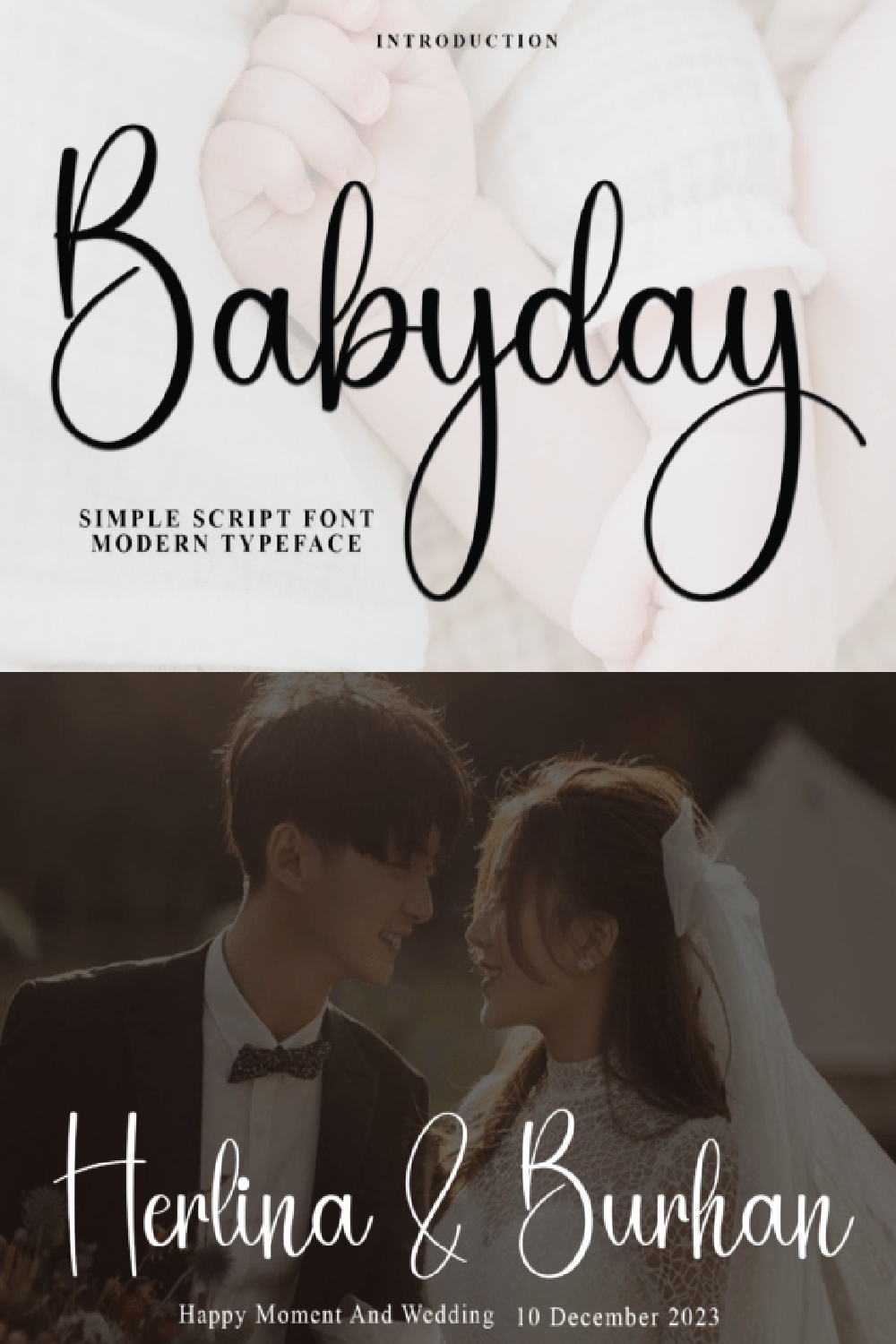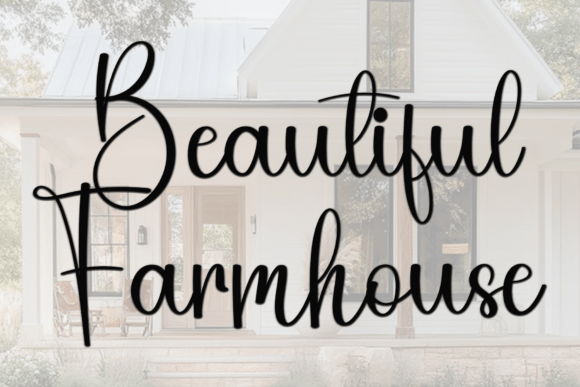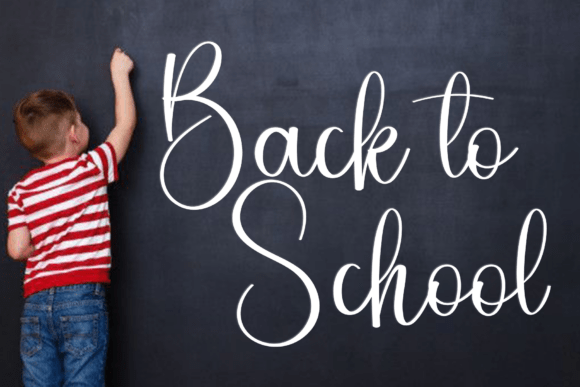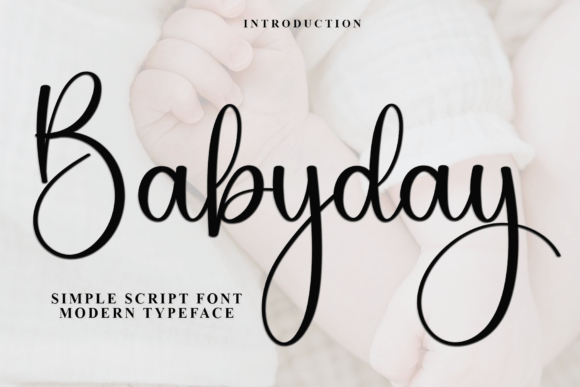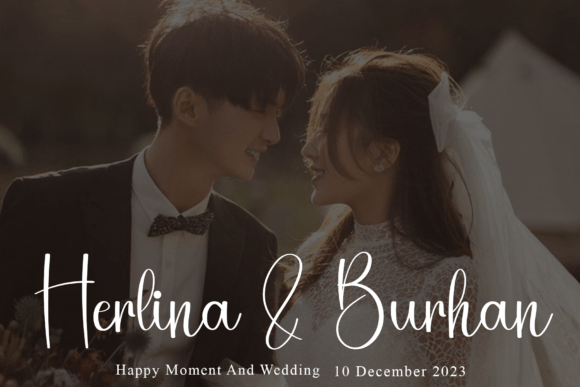
About the Babyday Font
The Babyday Font is here to transform your projects with its distinctive character and style. Babyday is a festive and merry typeface that captures the spirit of the holiday season. With its decorative elements and whimsical flair, it adds a touch of enchantment to your designs. Perfect for greeting cards, gift tags, and holiday-themed projects, this font brings a cheerful and nostalgic ambiance to your words. Let your typography shine with the magic of Beautiful Font!